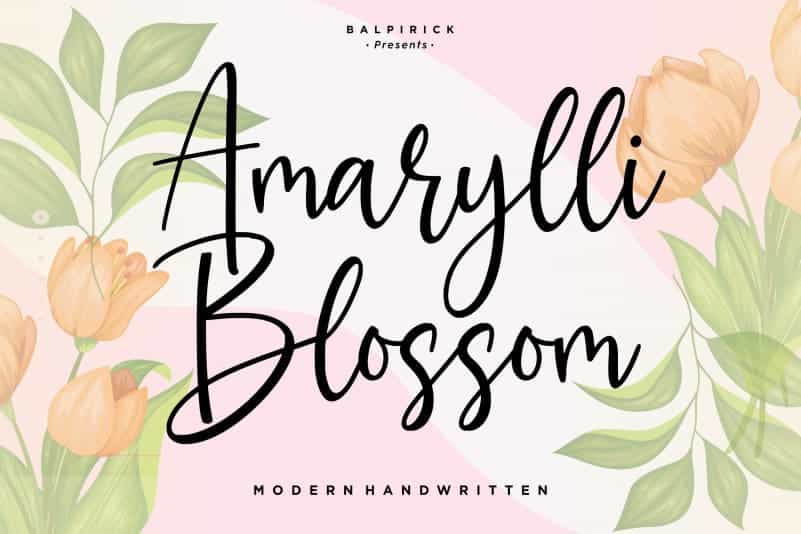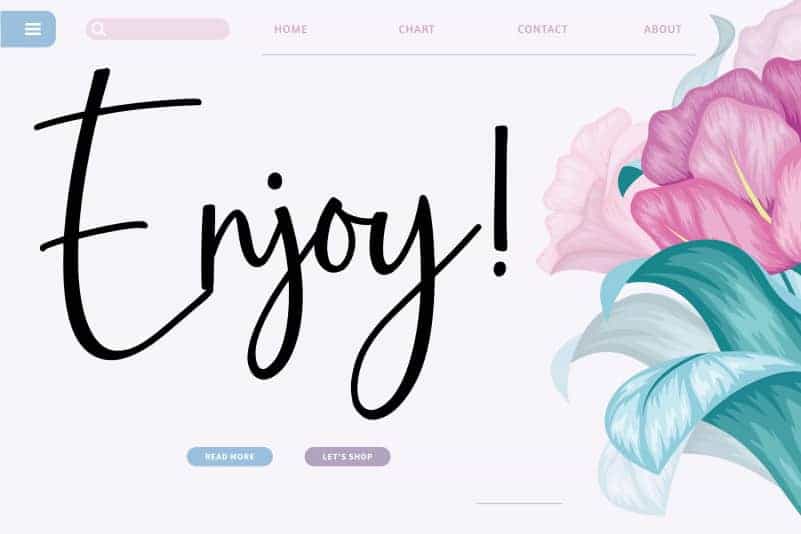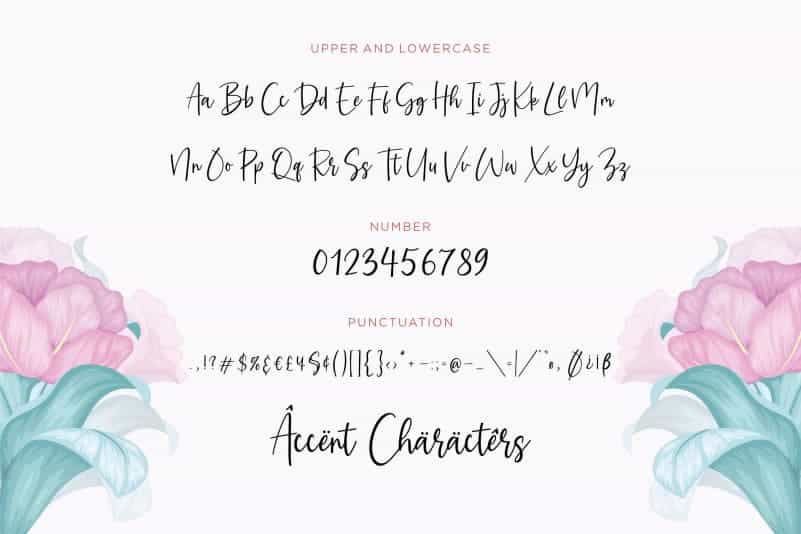
Discover Amaryllin Blossom Handwritten Font, part of the Calligraphy Handwritten collection—a versatile and unique font perfect for adding a personal touch to your projects. Download it for free and enjoy crafting designs with style, from invitations to social media posts. This font is available exclusively for personal use, giving you the freedom to create without limits. Unlock your creativity with Amaryllin Blossom Handwritten Font today!
Amarylli Blossom is a font for product packaging branding projects magazines social media content weddings. It also supports TTF font.